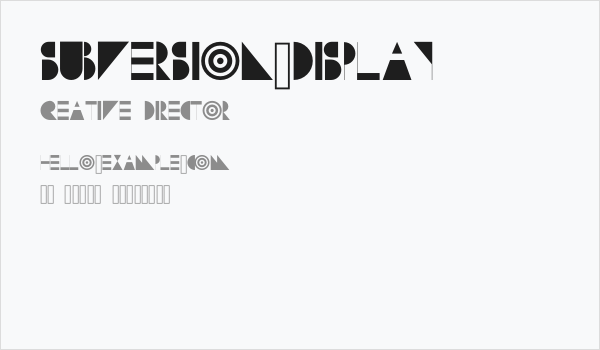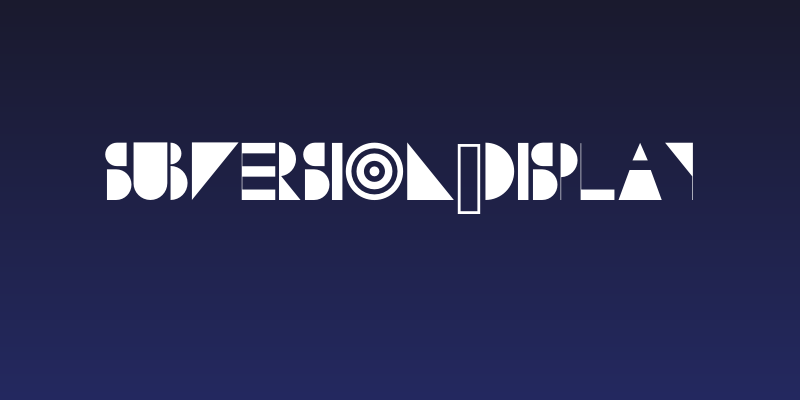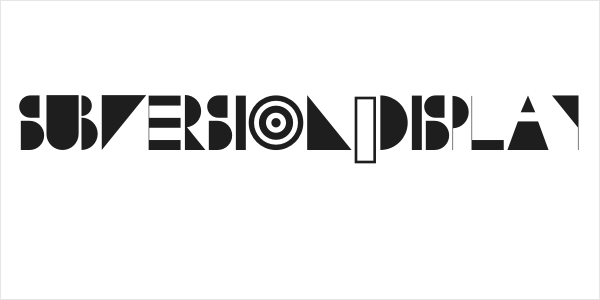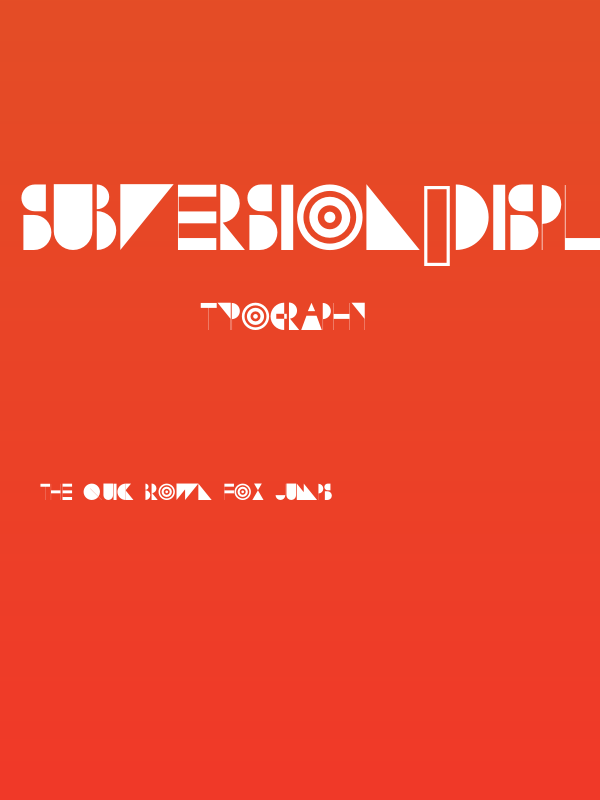
Subversion-Display Font
Subversion-Display Description
This font is a bold and striking display typeface characterized by its geometric shapes and high contrast. The letters are constructed using basic geometric forms such as circles, triangles, and rectangles, creating a modern and abstract appearance. The uppercase letters are particularly distinctive, with some characters featuring split or bisected designs that add a unique visual interest. The font lacks lowercase letters and numerals, focusing instead on a strong uppercase presence. The special characters are represented by intricate line patterns, further emphasizing the font's decorative nature. Overall, this typeface is designed to make a bold statement and is ideal for projects that require a modern and avant-garde aesthetic.
| Proposed Projects | Ideal for modern art posters, avant-garde branding, and innovative logo designs. |